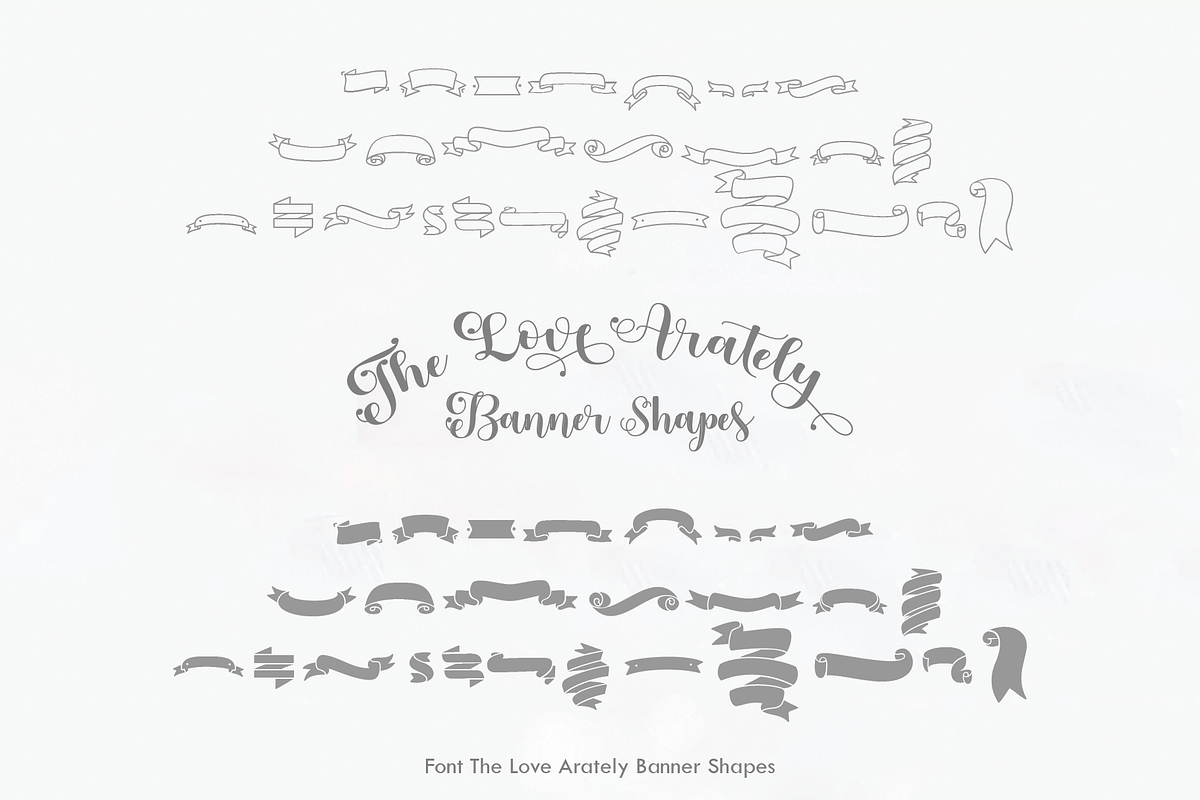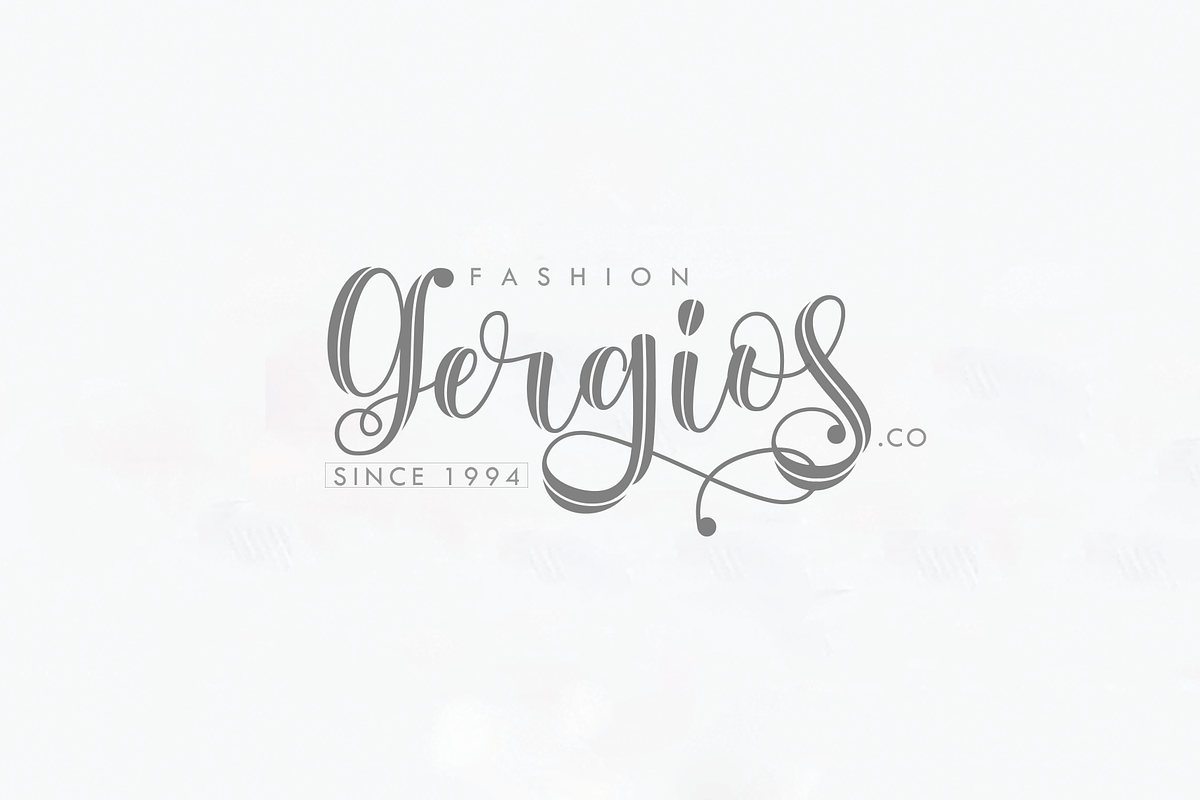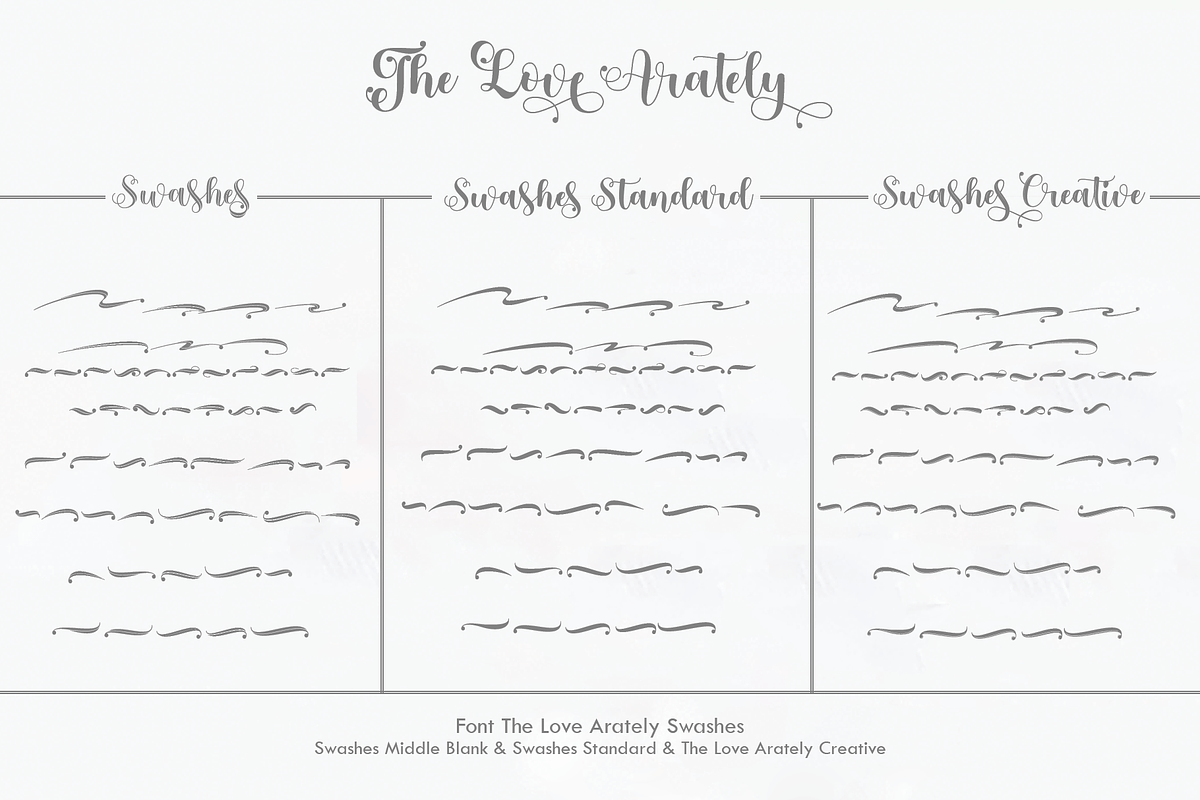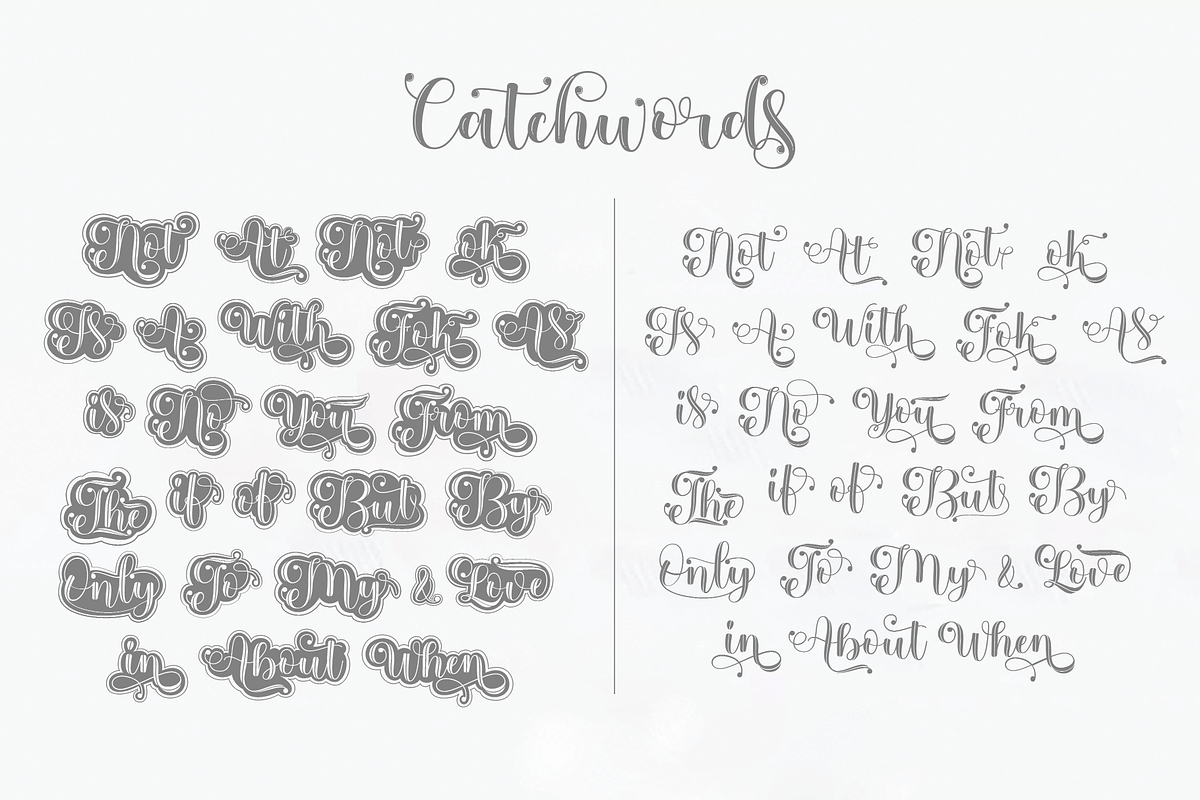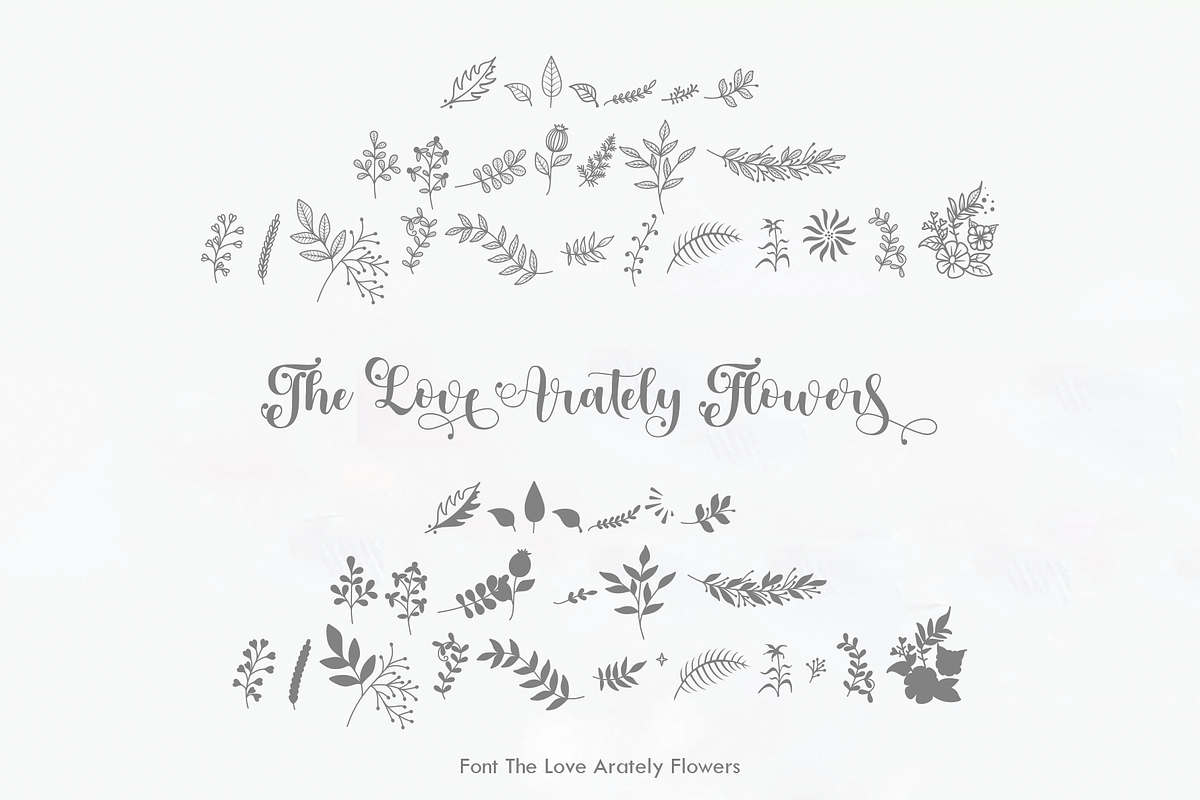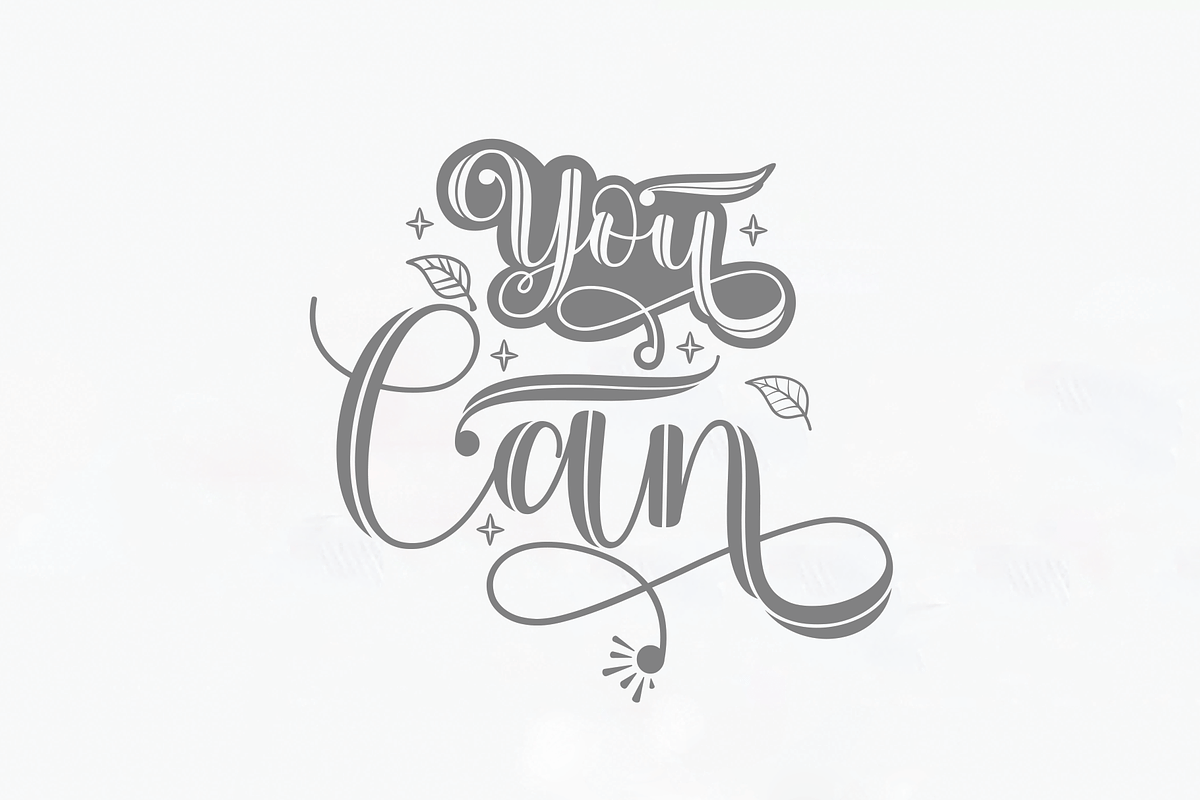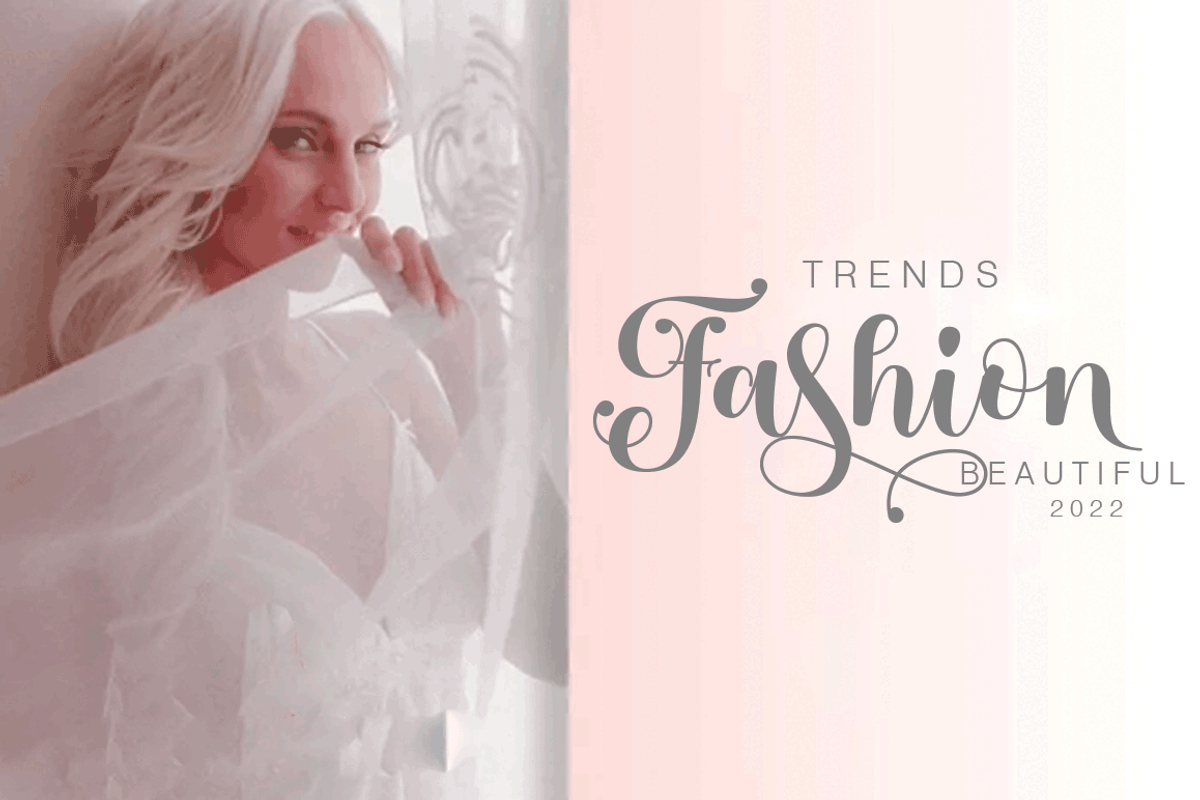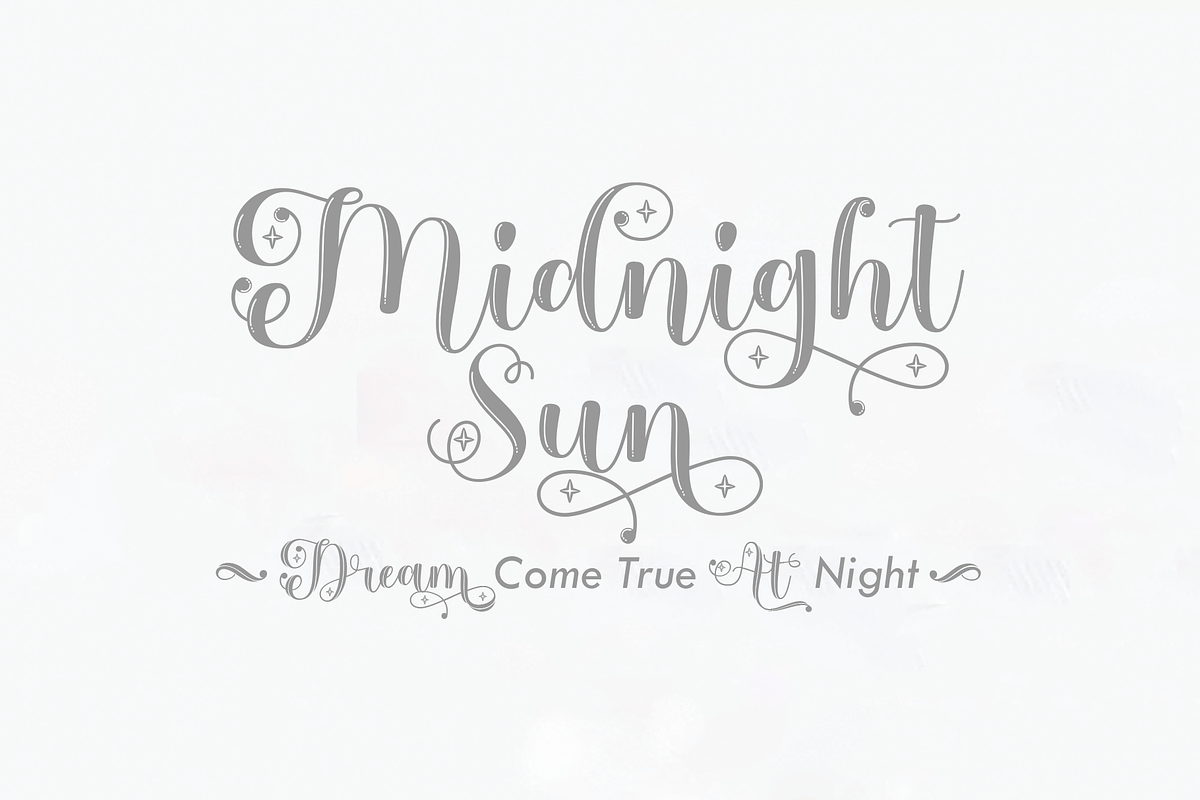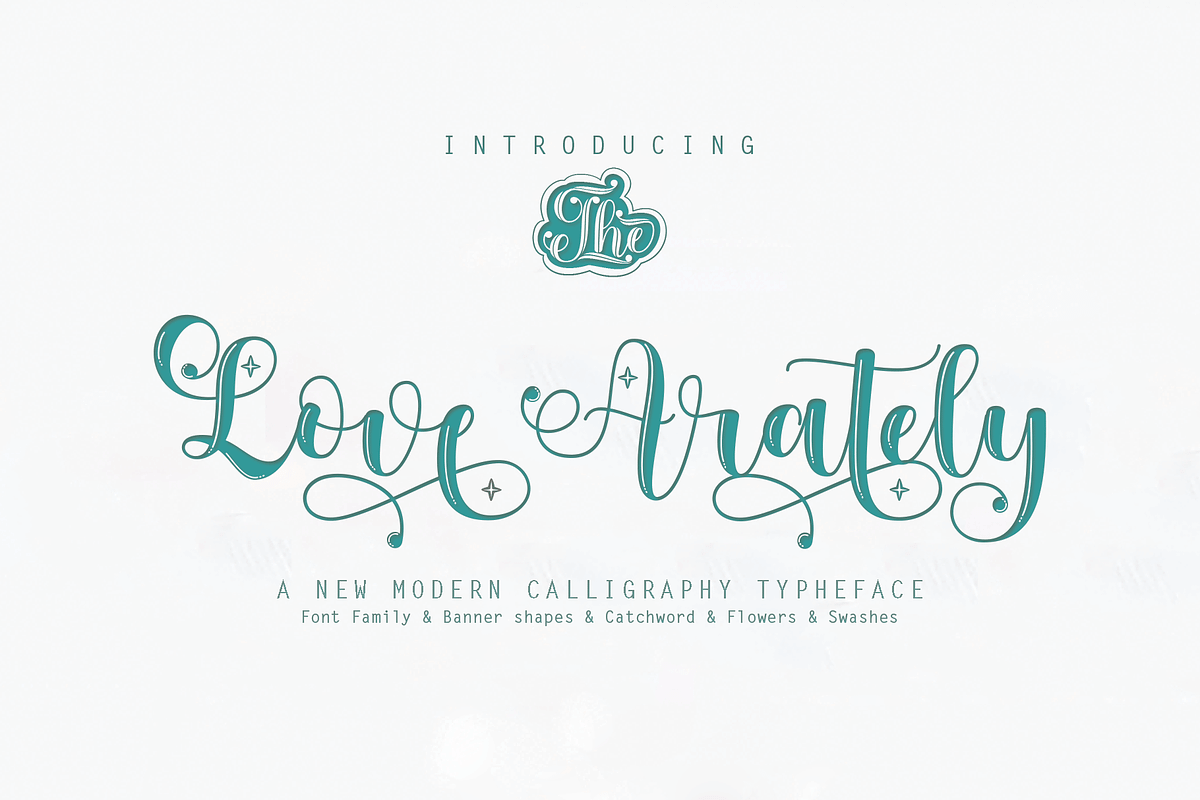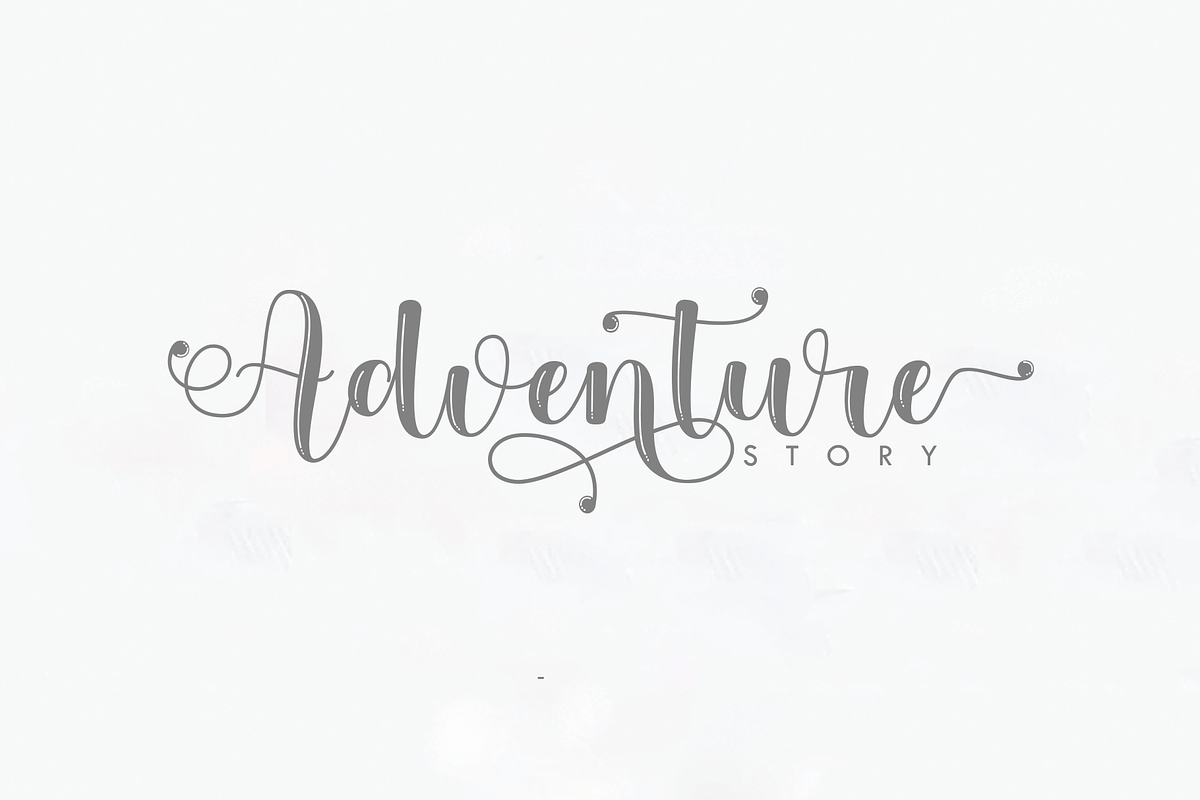
Love Arately
The Love Arately is a fun font family and an elegant script font.
This font is perfect for retro designs, procreate, branding, shirts, logos, procreate, stickers, cricut projects, instagram, social media and more!